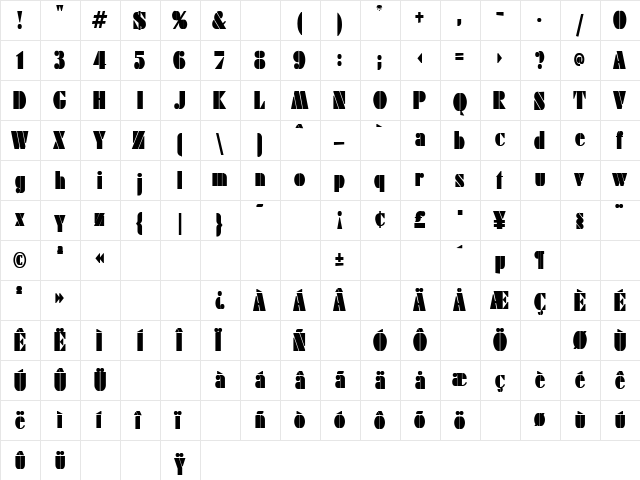
Sharp 3 Bold
Design Context for Sharp 3 Typeface
Sharp 3 is a composed and adaptable typeface that performs quietly and consistently across a wide range of design contexts. Its bold stroke weight gives it real presence on the page.